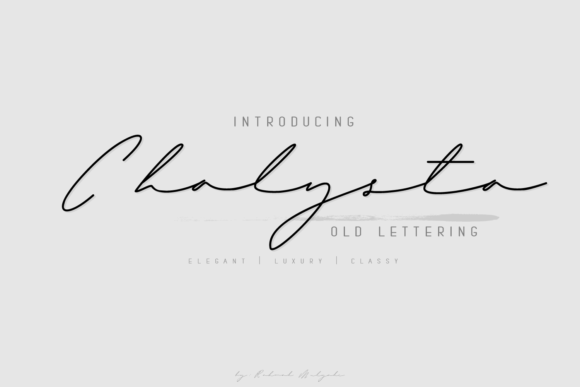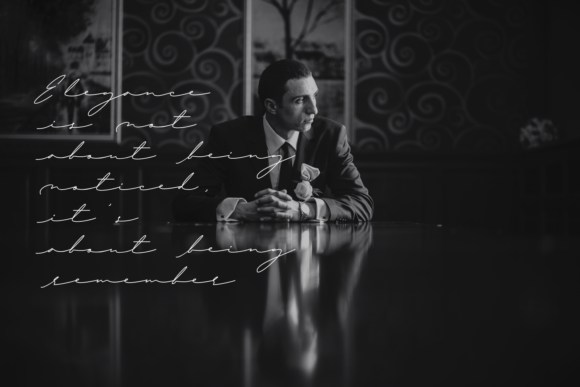
About Chalysta Font
Chalysta is a thin, exquisite and flowing handwritten font. It looks beautiful on a variety of designs requiring a personalized style, such as wedding invitations, thank you cards, weddings, greeting cards, logos and so on.